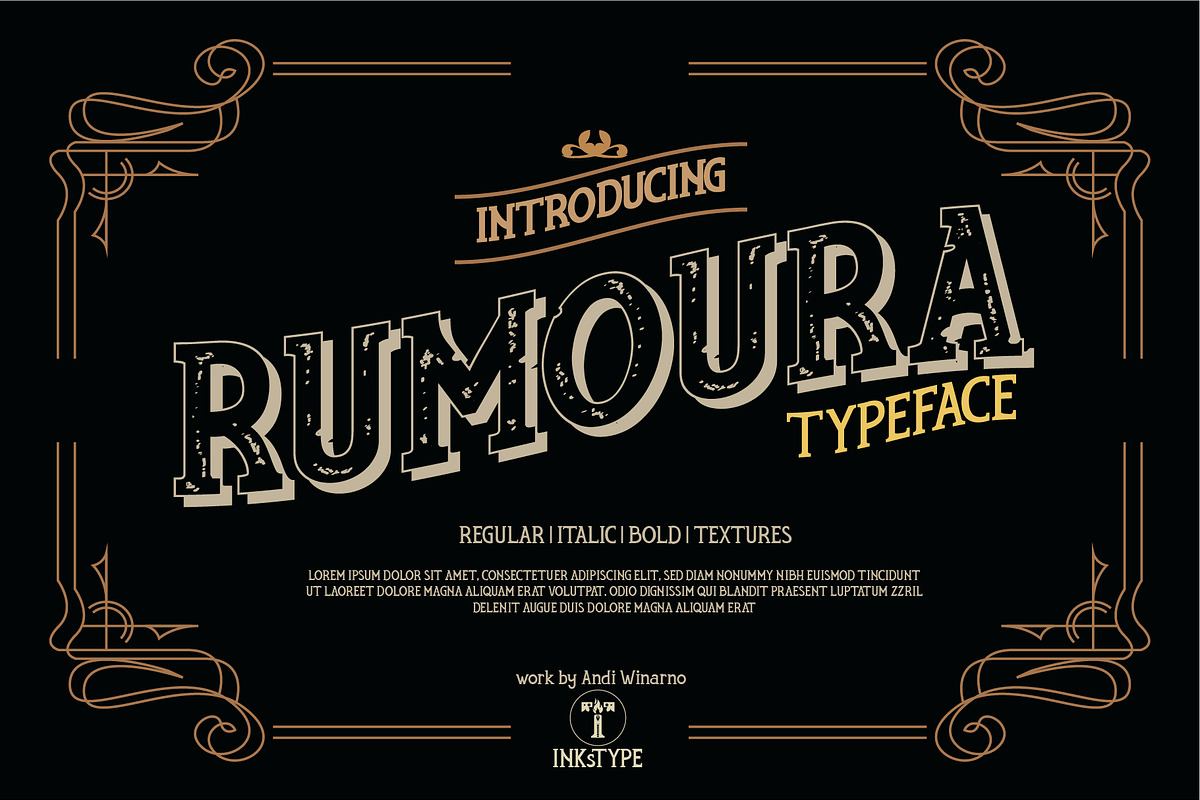
Please note that you must purchase this font for commercial use. You can download Rumoura Font for free, strictly for personal testing purposes only. Rumoura is a sleek, elegant serif font that combines classic sophistication with a modern touch. With its smooth curves, sharp serifs, and clean design, Rumoura Font Free Download is perfect for upscale branding, editorial layouts, logos, invitations, and product packaging that require a refined, professional appearance.
The font's versatile style makes it suitable for both print and digital designs. It includes uppercase and lowercase letters, numerals, punctuation, and multilingual support, providing flexibility for a wide range of creative projects.
Whether you’re creating a luxurious brand identity or designing an elegant invitation, Rumoura brings timeless charm and contemporary flair to your typography.